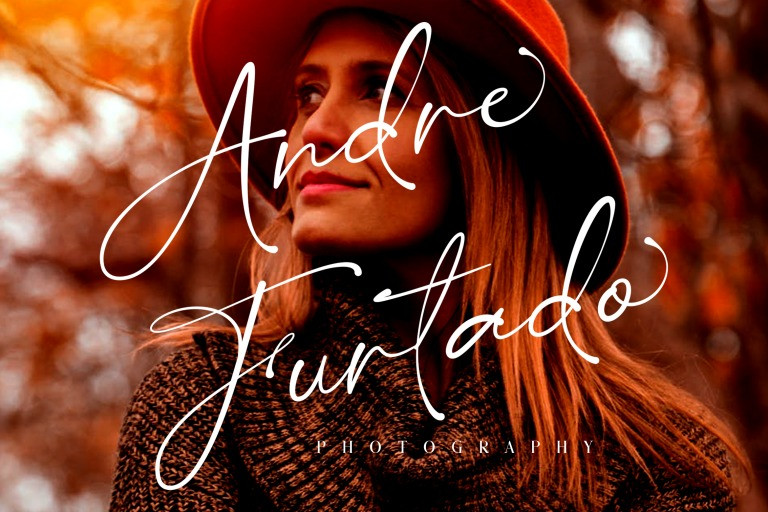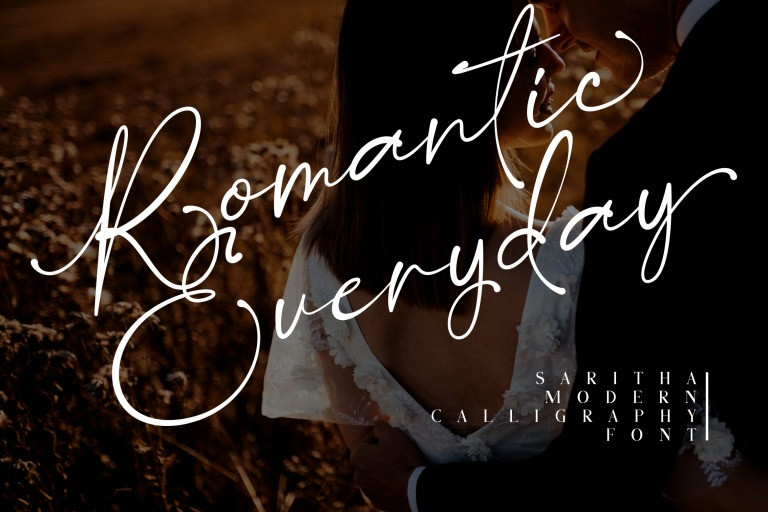
Saritha Handwritten Font
This script font is a classy elegant typeface carefully created with a touch of romantic. Saritha offer beautiful typographic harmony for a variety of design projects, including watermark, logos,branding, wedding designs, social media posts, advertisements, product designs, magazines and others.